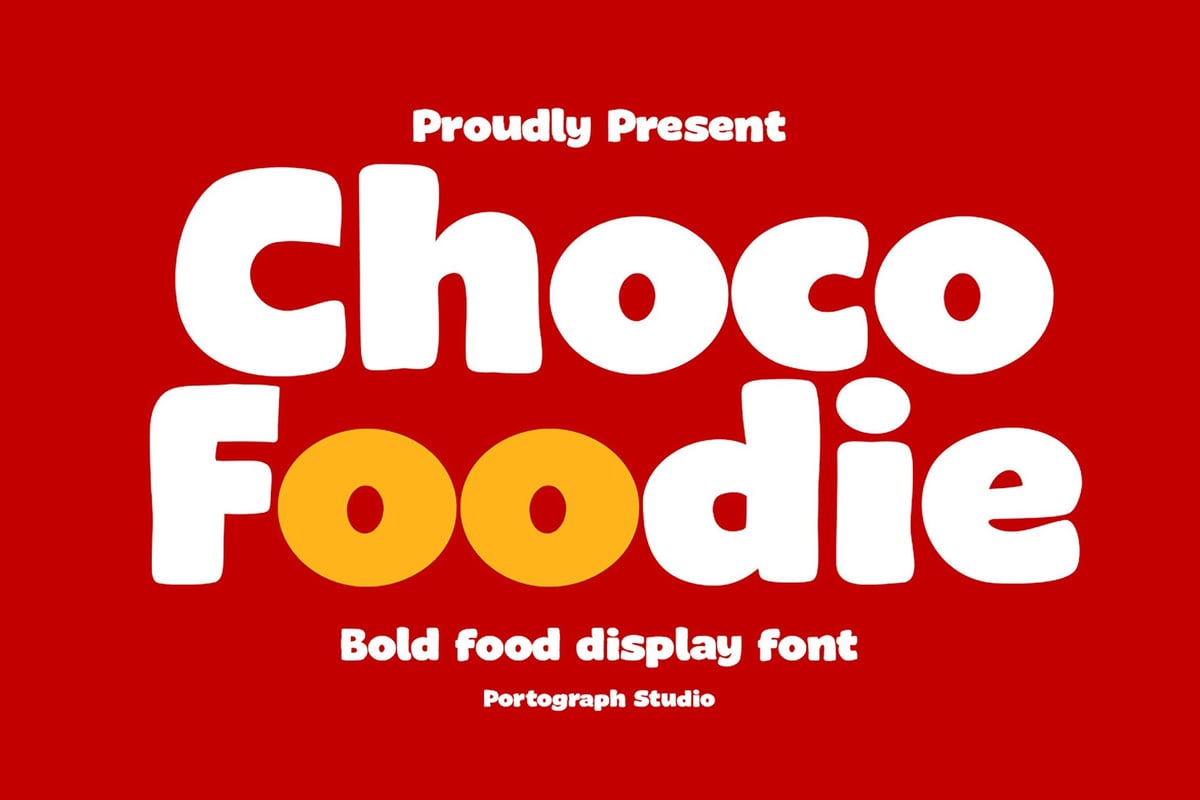
Choco Foodie – Food Font
Grab attention instantly with this bold, playful display font designed specifically for food-related visuals and branding. Choco Foodie features thick, rounded letterforms with a friendly personality that delivers delicious visual impact. This specialty typeface is expertly crafted to enhance restaurant designs and food promotional materials with its attention-grabbing appeal. Package includes: OTF TTF WOFF WOFF2 Features: Uppercase Lowercase Ligatures Numerals Punctuation Easy To Install Perfec...